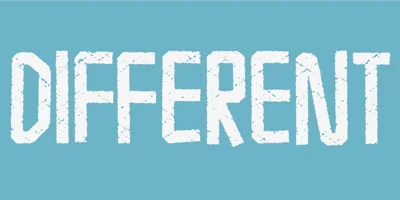
Videomax Font
Videomax Font is perfect for video production companies, streaming platform branding, movie title sequences, entertainment industry marketing, YouTube channel graphics, digital media agencies, film festival posters, video editing software interfaces, broadcast television graphics, and any projects that need dynamic typography with cinematic impact and entertainment industry appeal.
What makes Videomax Font exciting is its powerful cinematic design that captures the high-energy excitement and visual impact of modern video entertainment with letterforms that command attention like blockbuster movie titles. This dynamic typeface features bold characteristics with technical precision that evokes professional video production, cutting-edge digital effects, and the thrilling world of visual storytelling that captivates audiences worldwide. The font's cinematic character makes it perfect for entertainment brands seeking to communicate excitement, professionalism, and the compelling visual power that defines today's video entertainment industry.
Videomax Font family includes cinematic style variations featuring light, regular, bold, and black weights. The font family also offers condensed versions optimized for video title applications, along with extended variants for maximum screen impact. Special features include video symbols, play button ornaments, and entertainment-themed decorative elements that enhance the cinematic atmosphere of multimedia design applications and broadcast graphics.